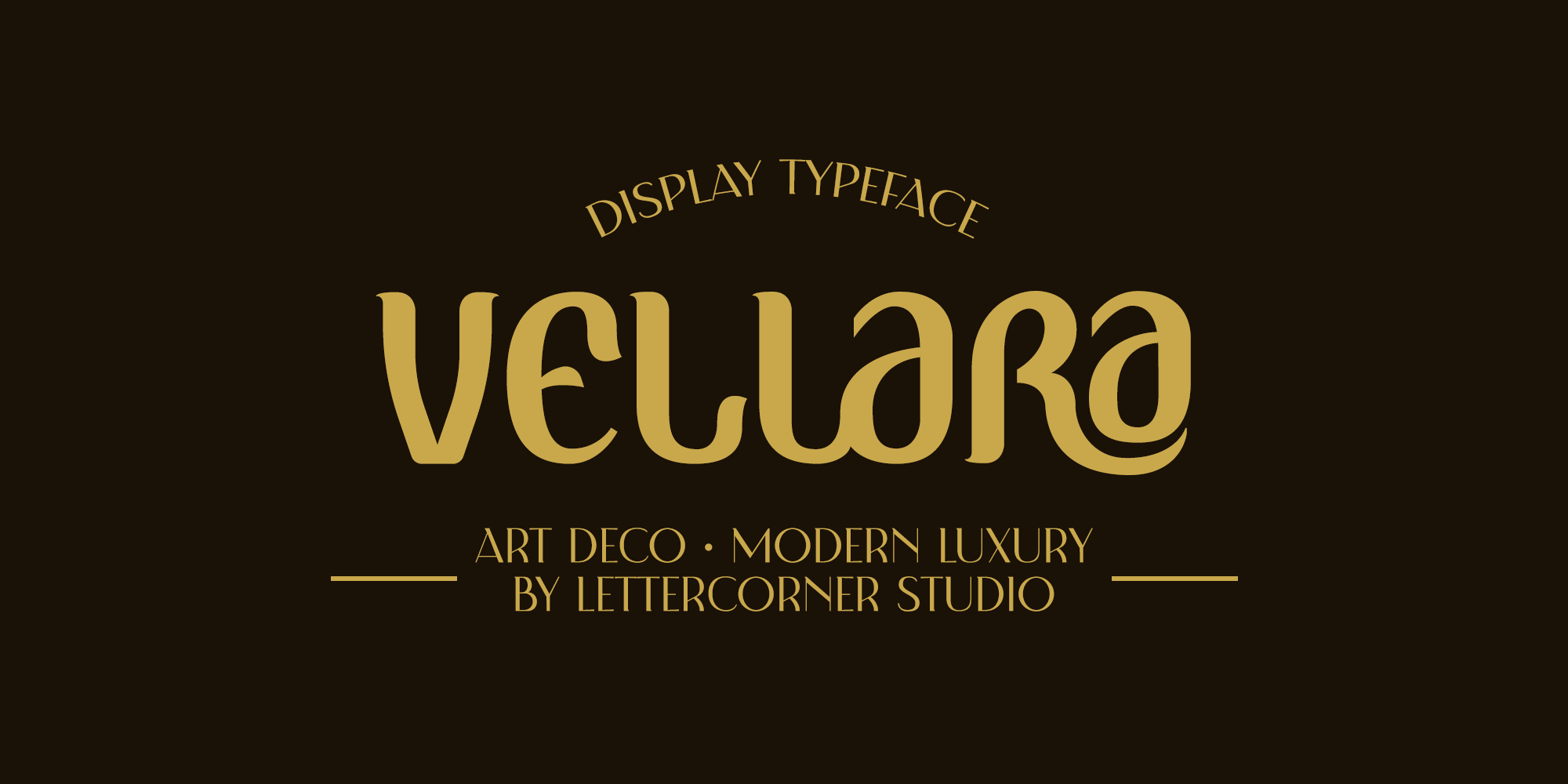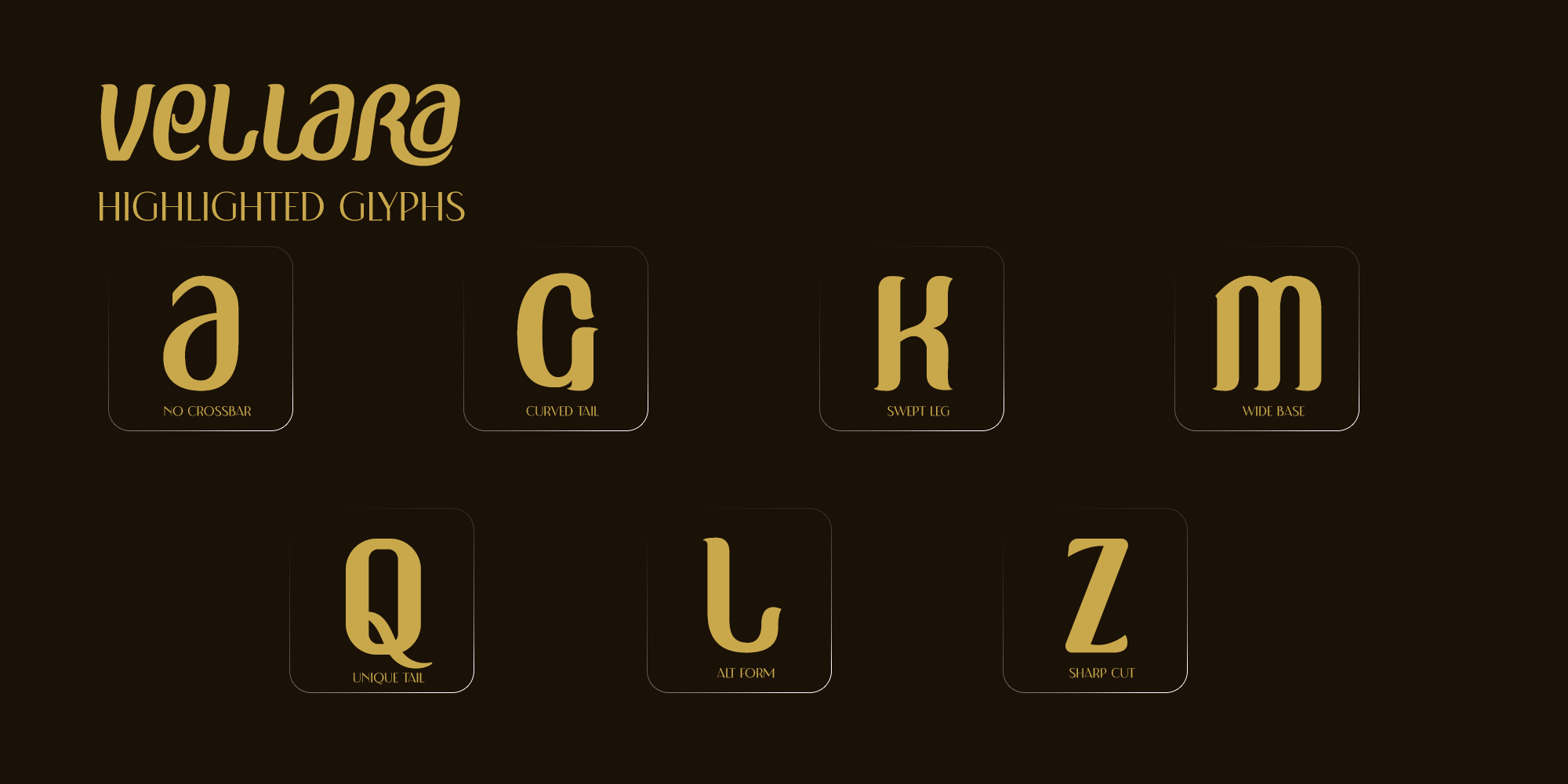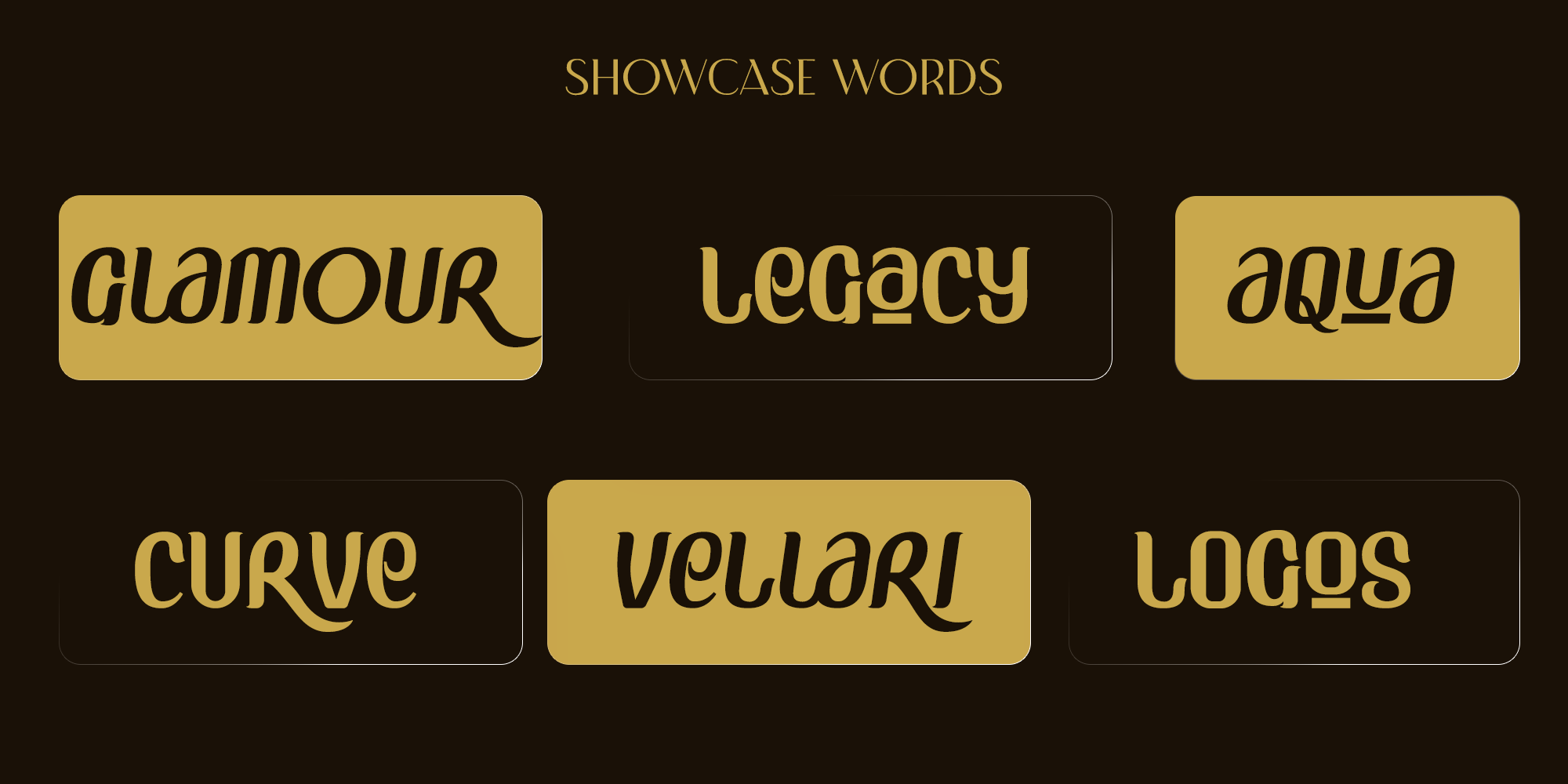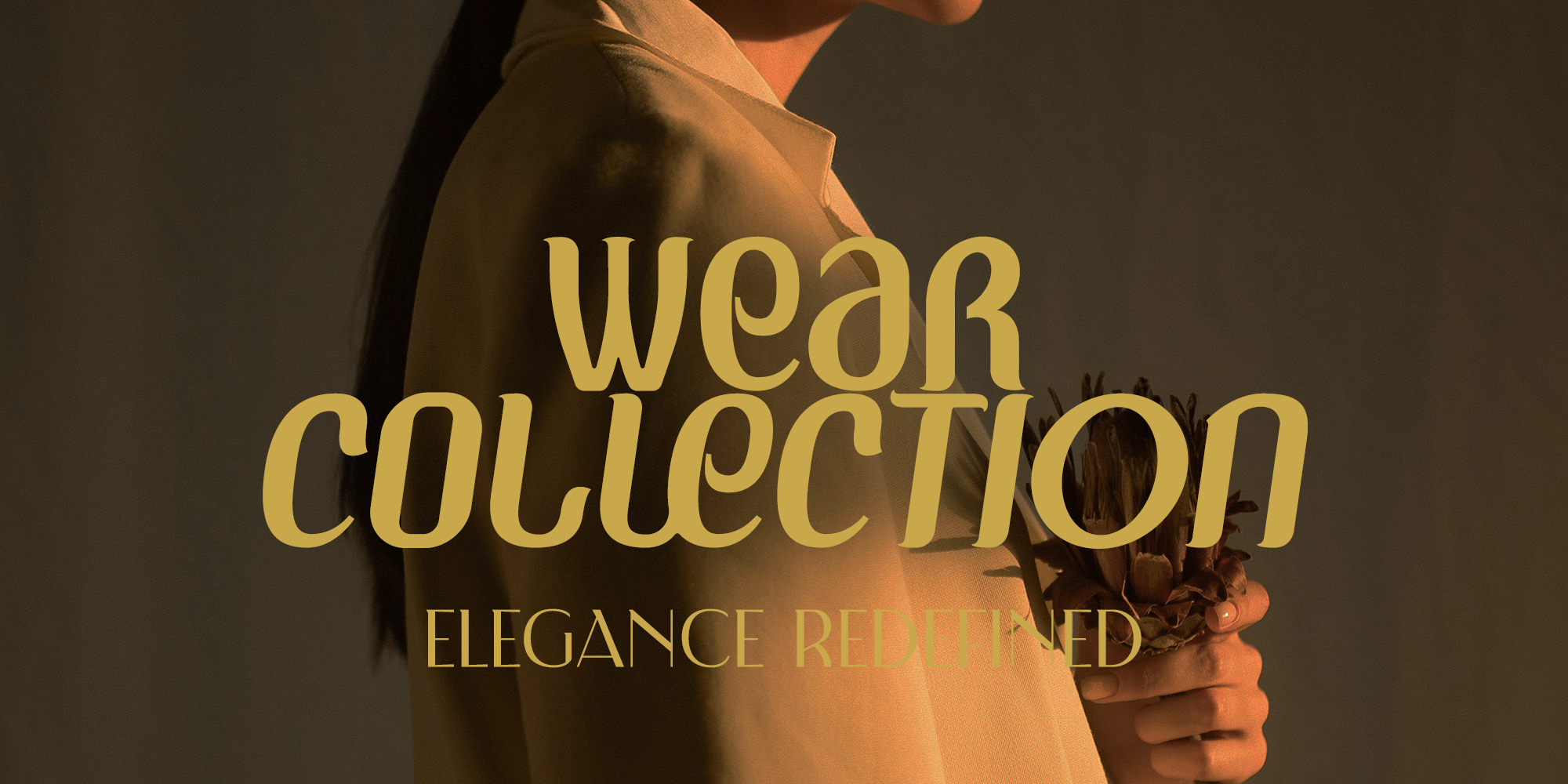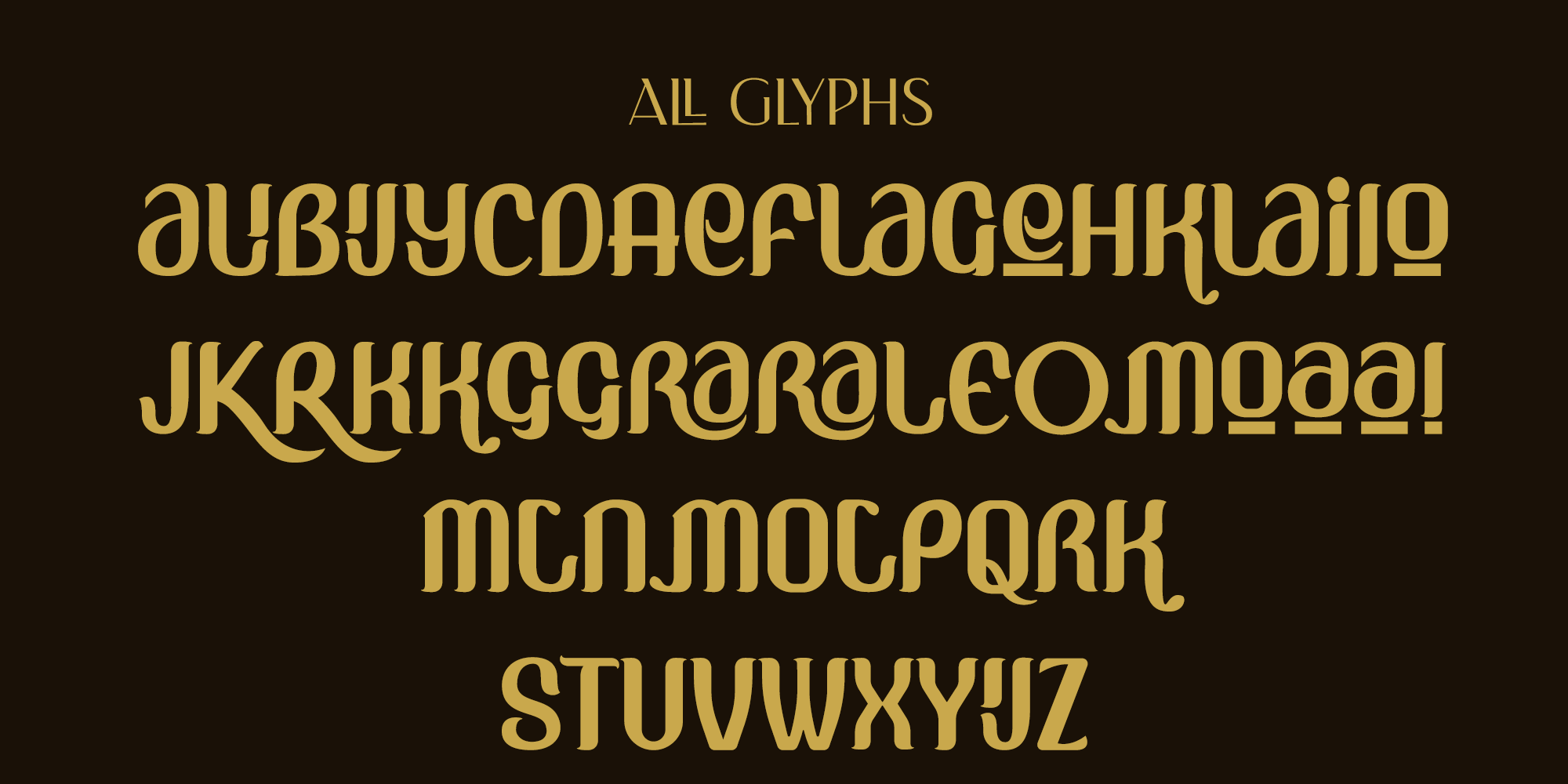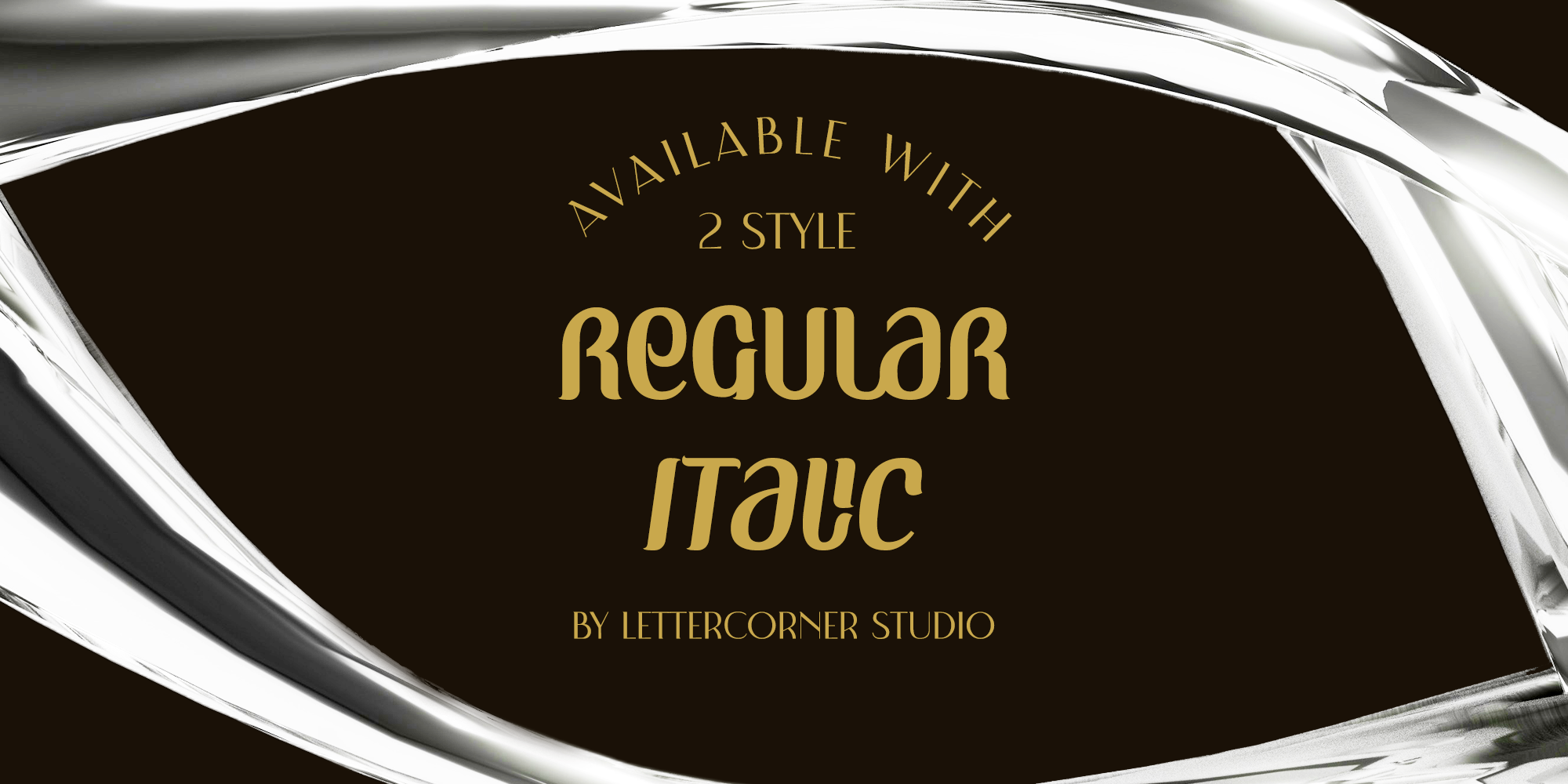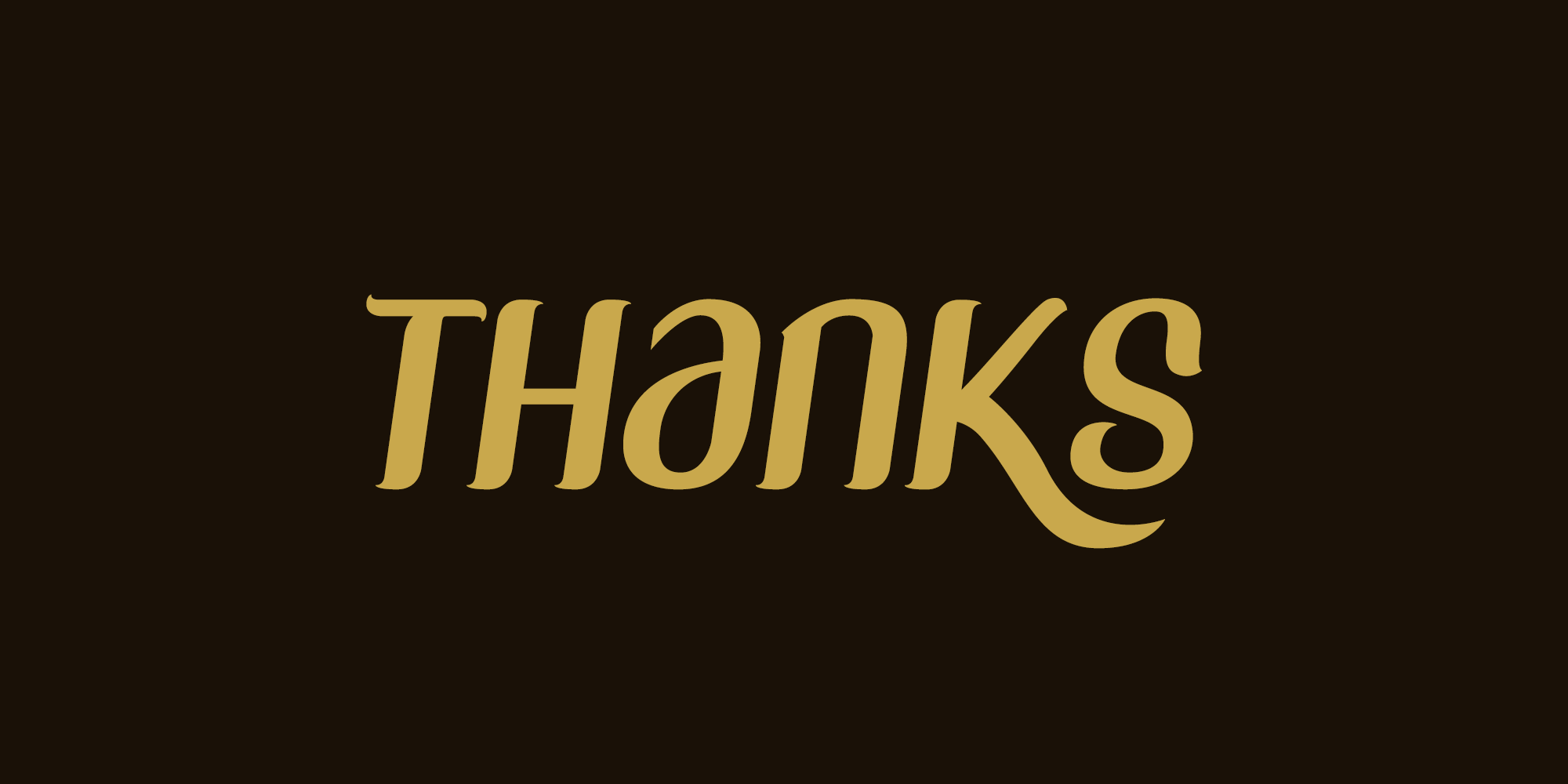
Vellara
Vellara — An Art Deco Display Typeface
Vellara is a bold display typeface born from the golden age of Art Deco — reimagined for the modern era. Each letterform carries the weight of architectural grandeur and the grace of haute couture, making it the perfect voice for brands that refuse to whisper.
Inspired by the ornate geometry of 1920s typography, the sweeping curves of mid-century fashion illustration, and the silent confidence of luxury editorial design, Vellara speaks in a language that is both timeless and unmistakably now.
What sets Vellara apart is its deliberate tension between strength and softness. The letterforms are bold and commanding, yet the curves flow with an elegance that feels almost handcrafted. The crossbar-free A, the swept leg of the K, the dramatic tail of the G — every character was designed to leave an impression.
Vellara is built for brands, designers, and creatives who understand that typography is not decoration — it is identity. Use it for luxury fashion labels, editorial spreads, premium packaging, brand logos, and anywhere your work demands presence.